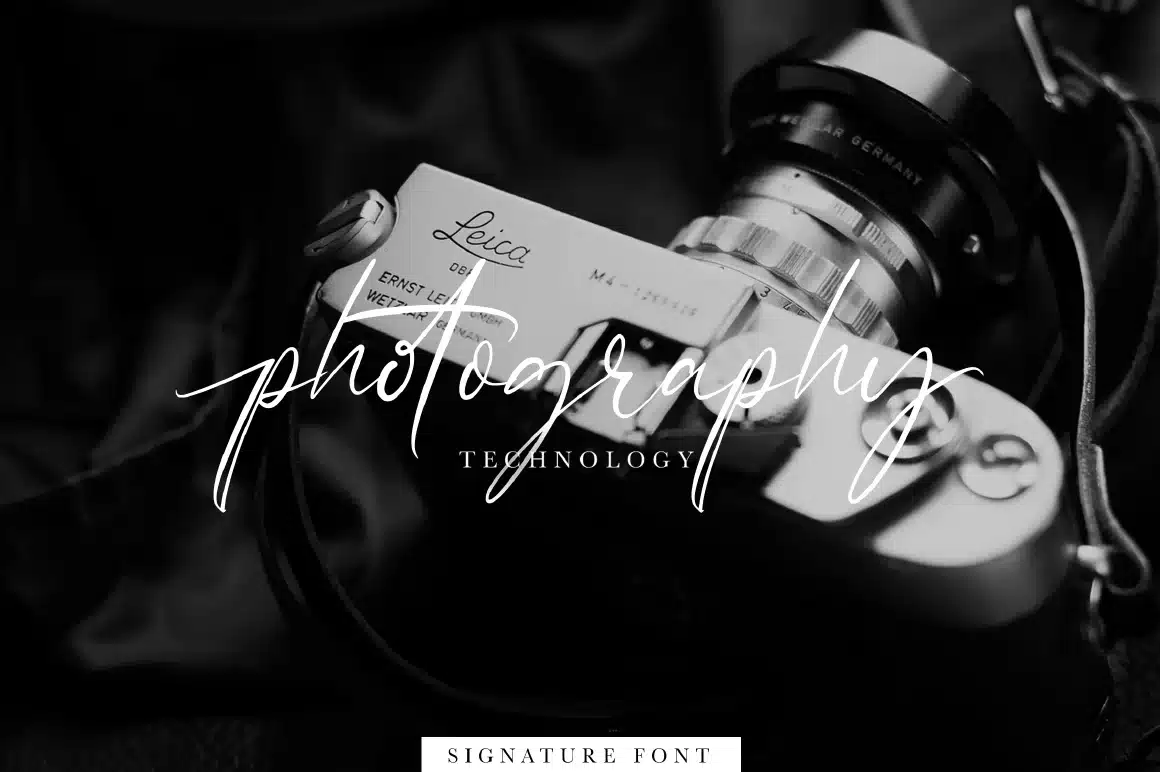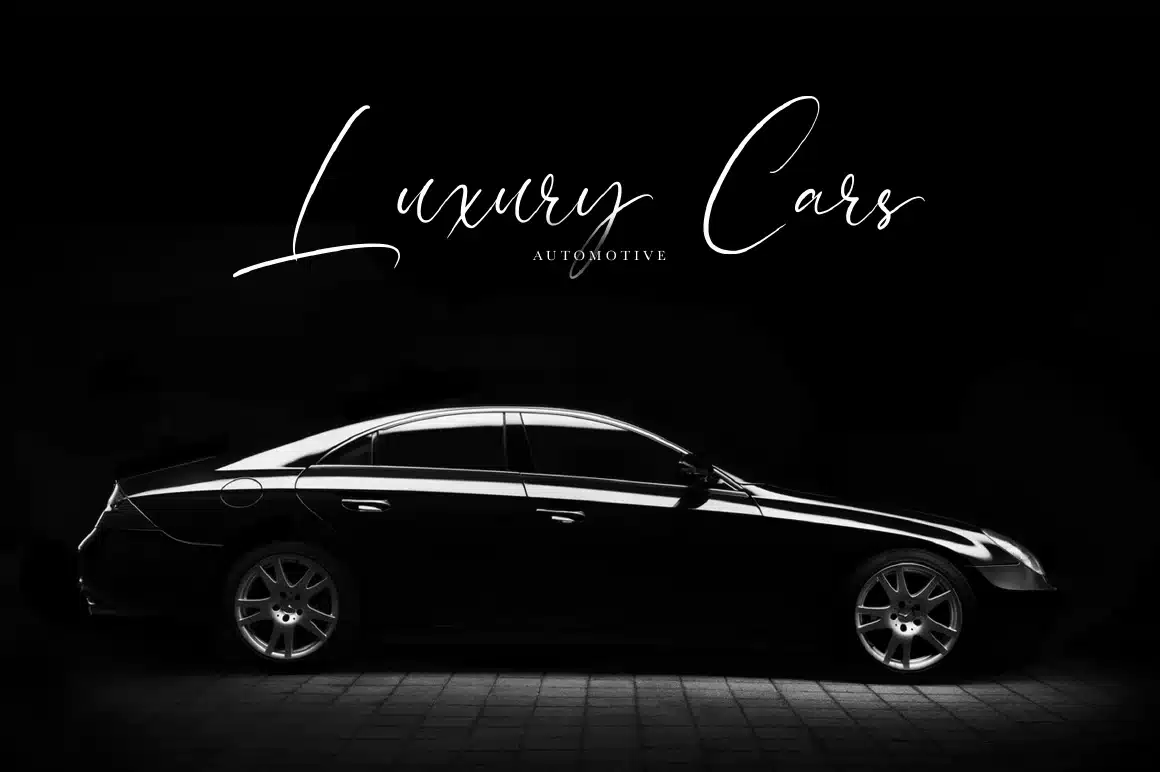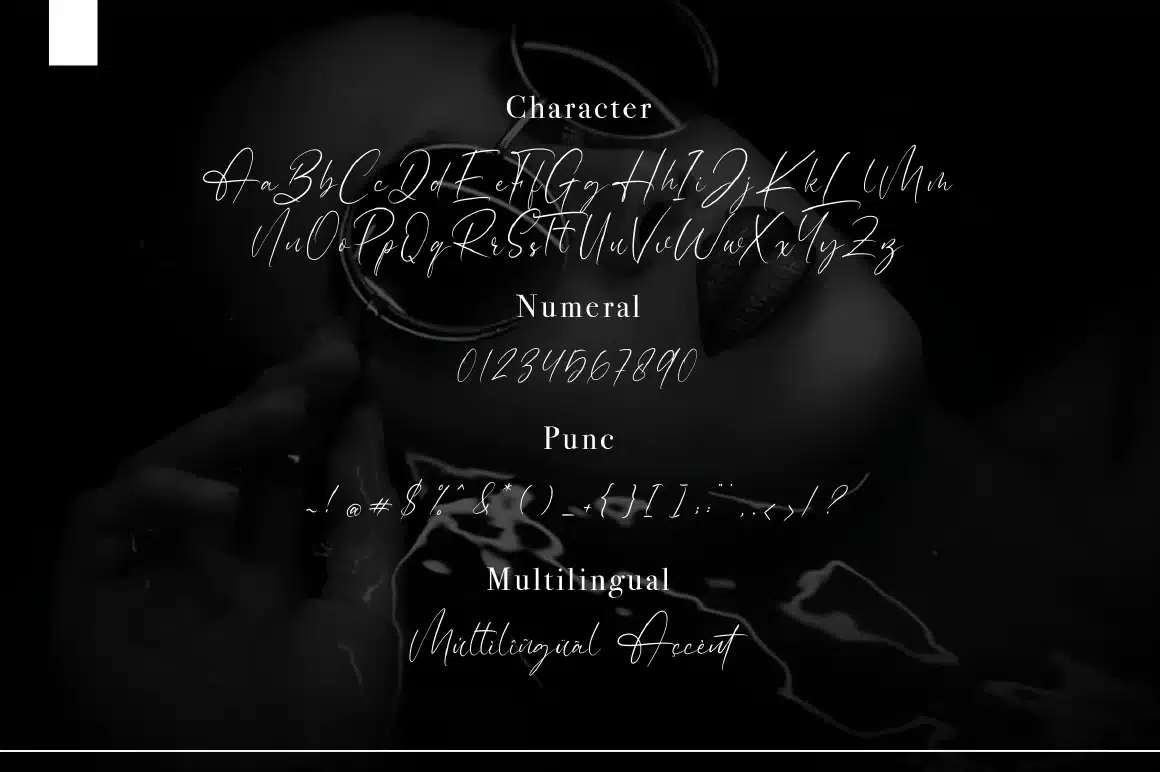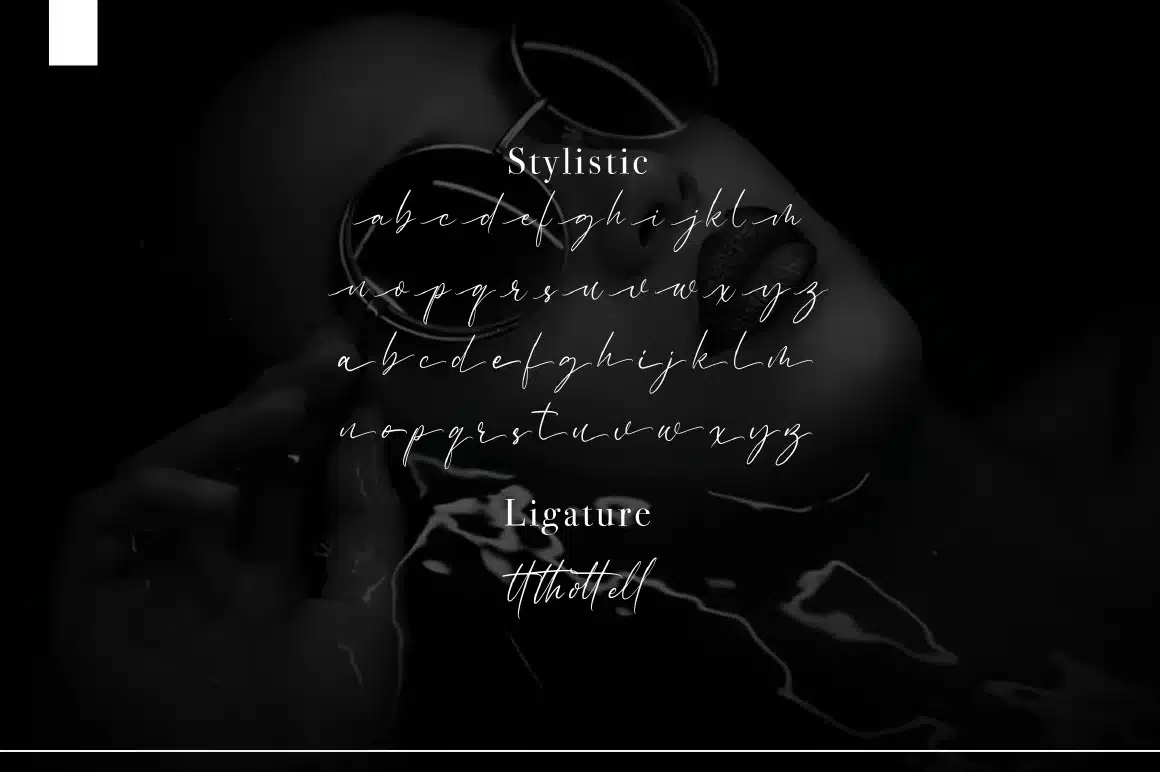
The Sunglasses – Signature Font
The Sunglasses is a signature font with a natural handwritten look. It is equipped with swashes, ligatures, and multiple styles to make it a versatile font. The Sunglasses can be used for various purposes such as: signatures, watermarks, magazines, quotes, website, titles and much more!